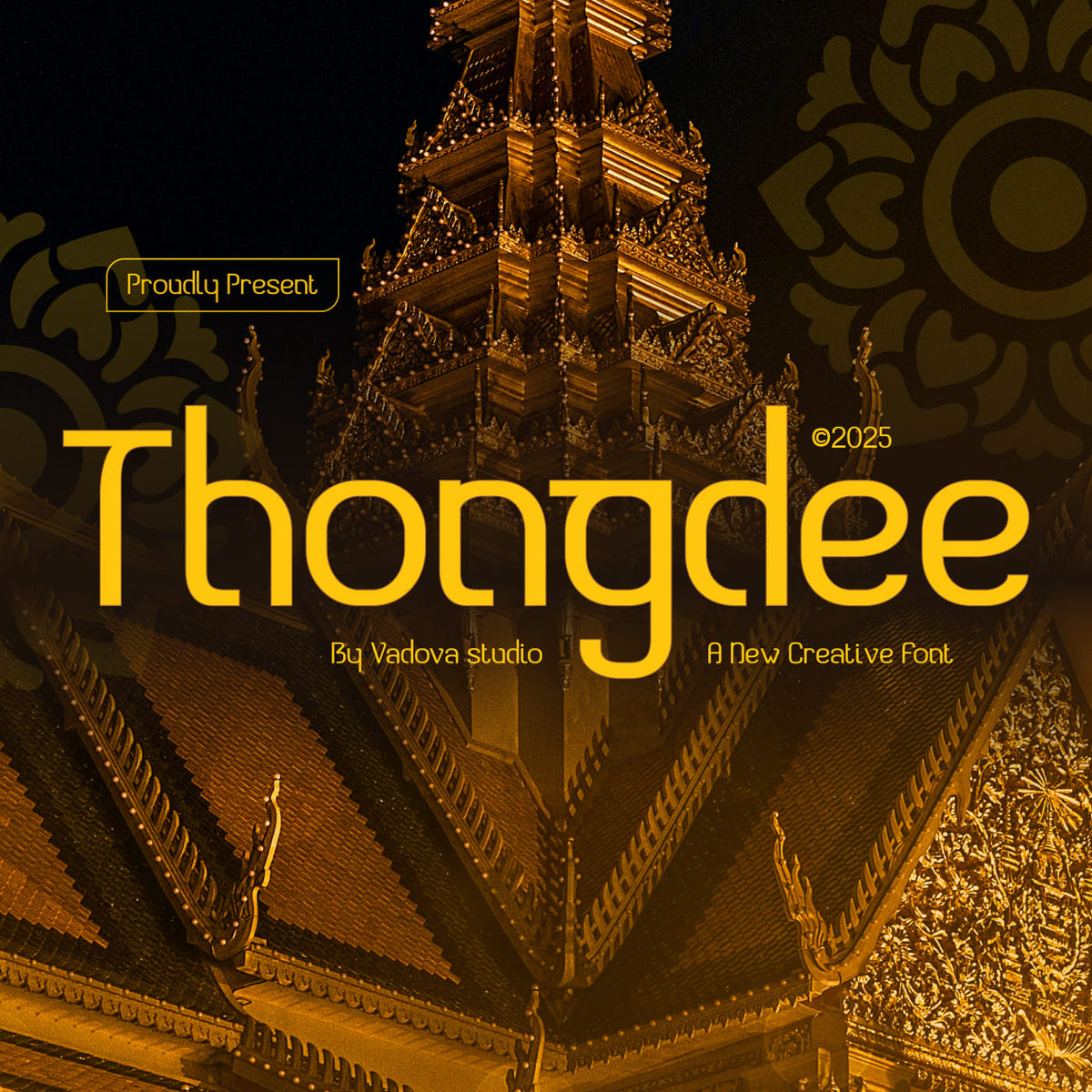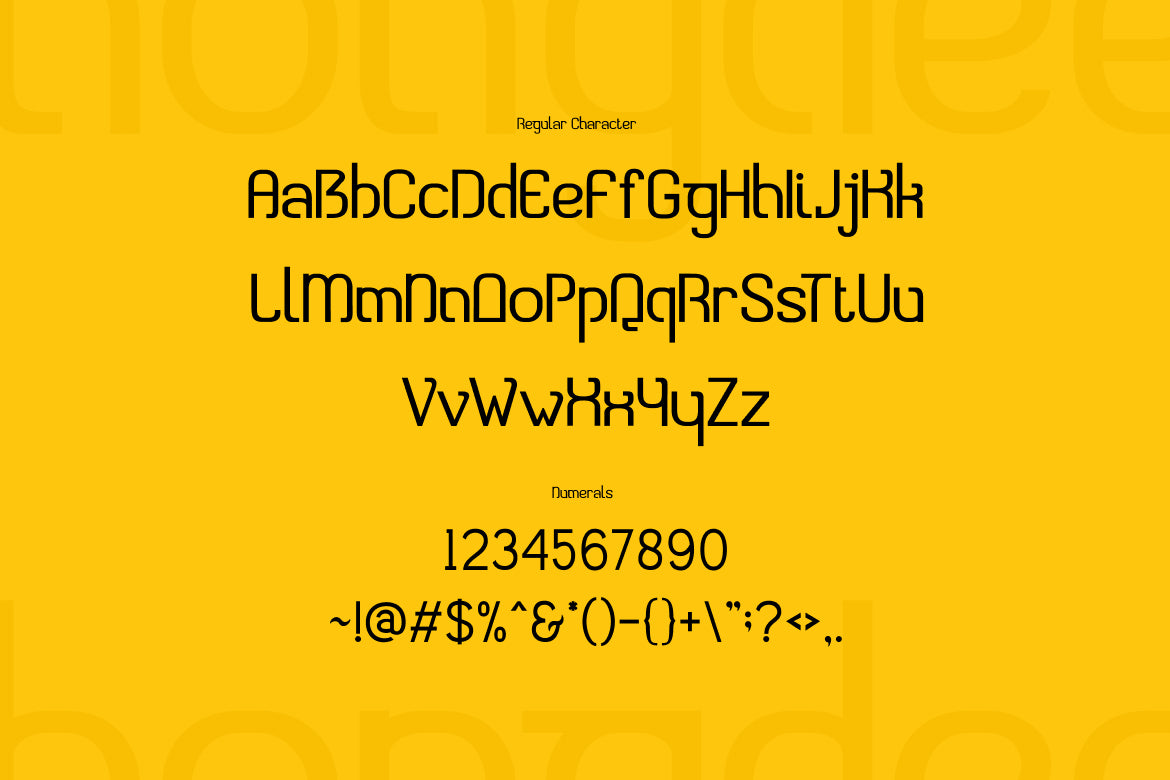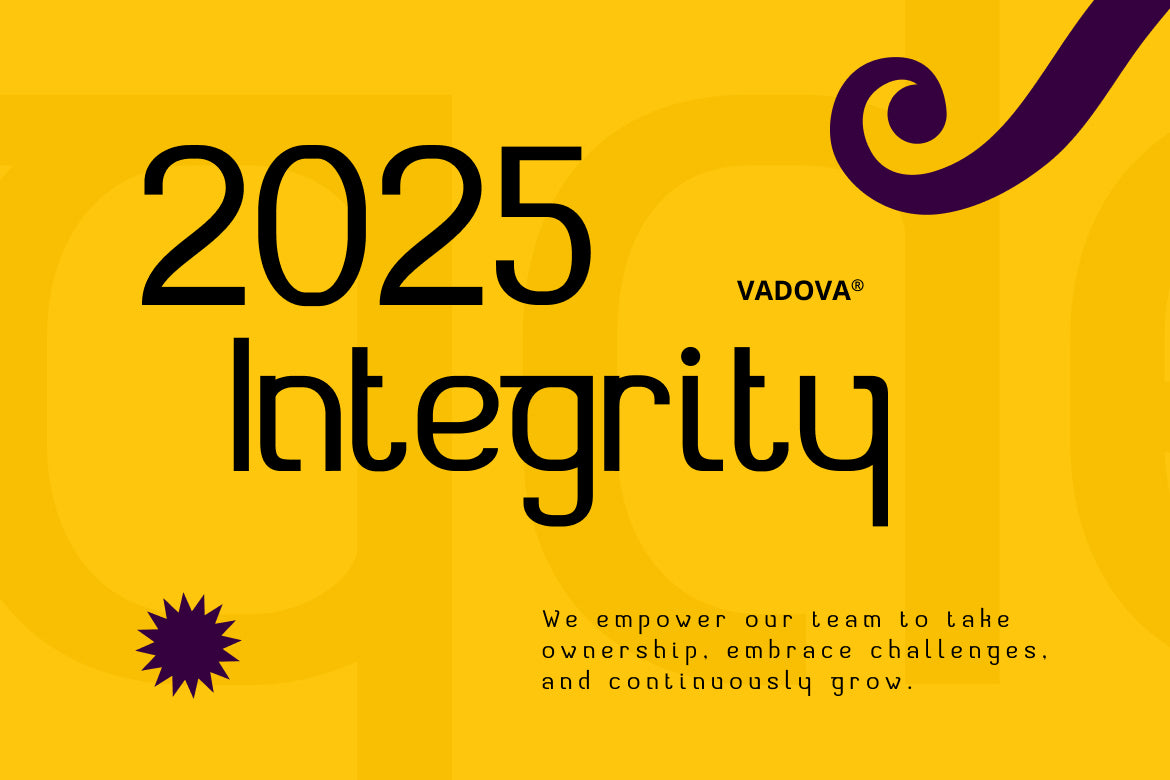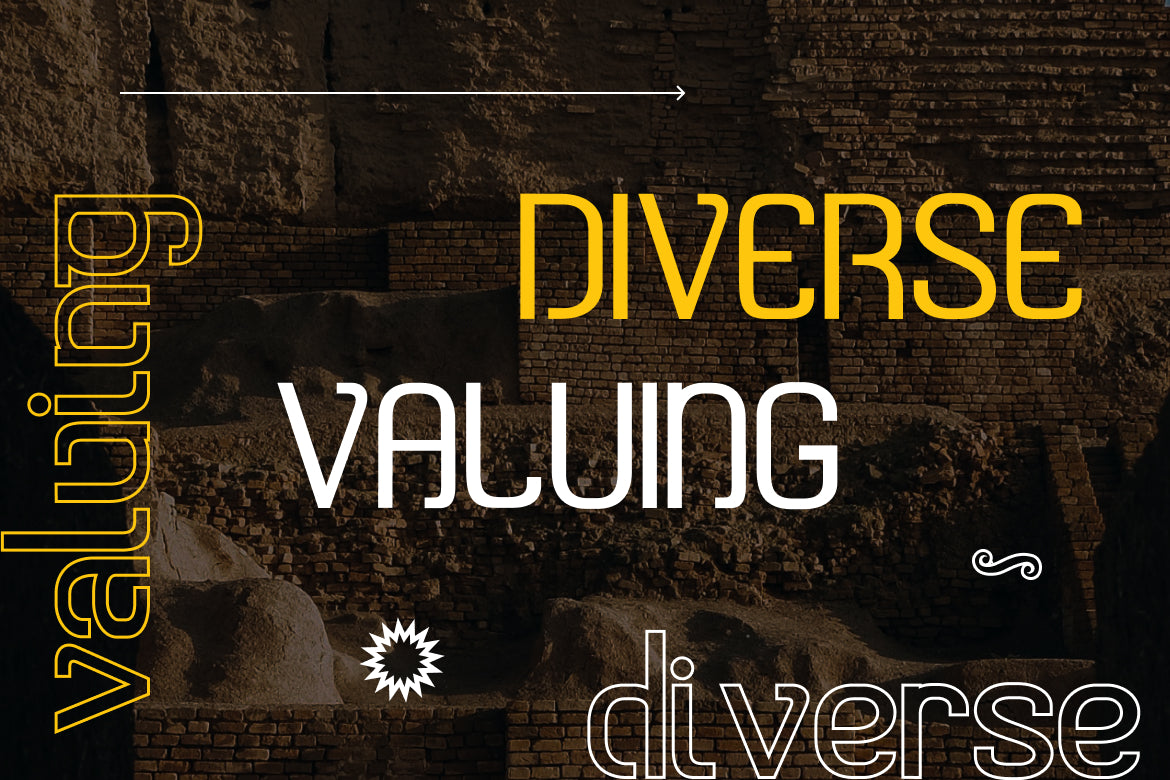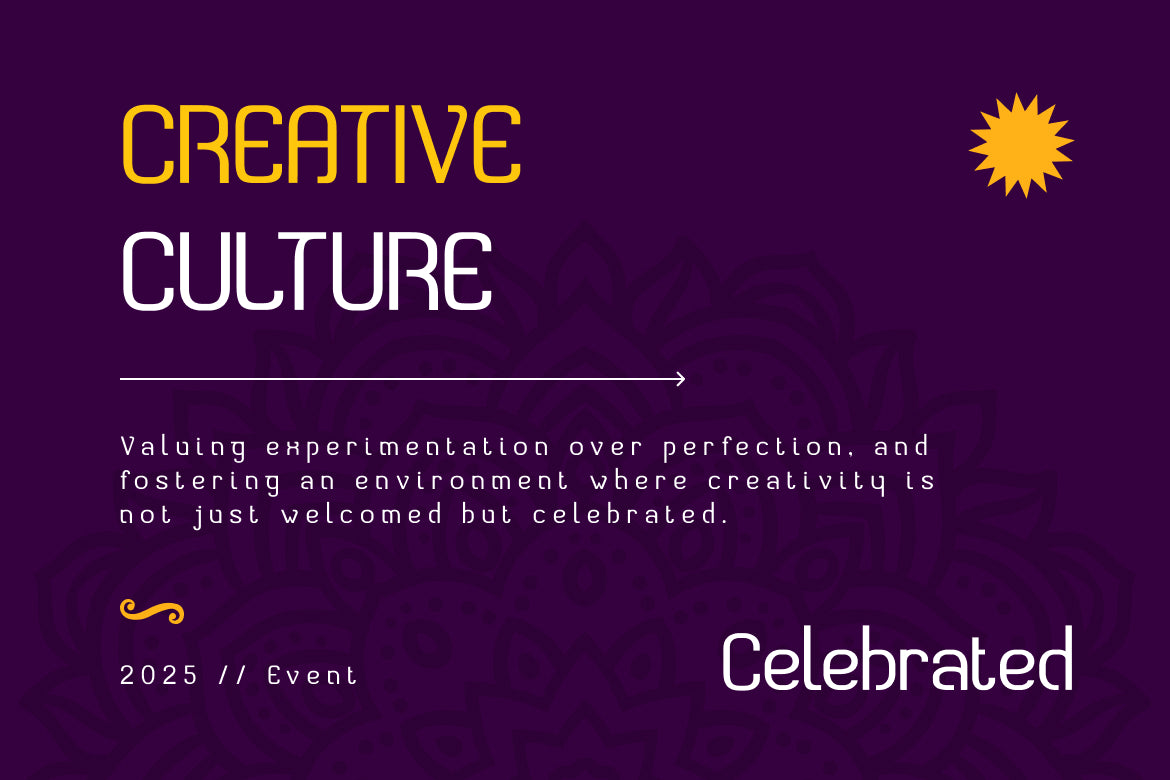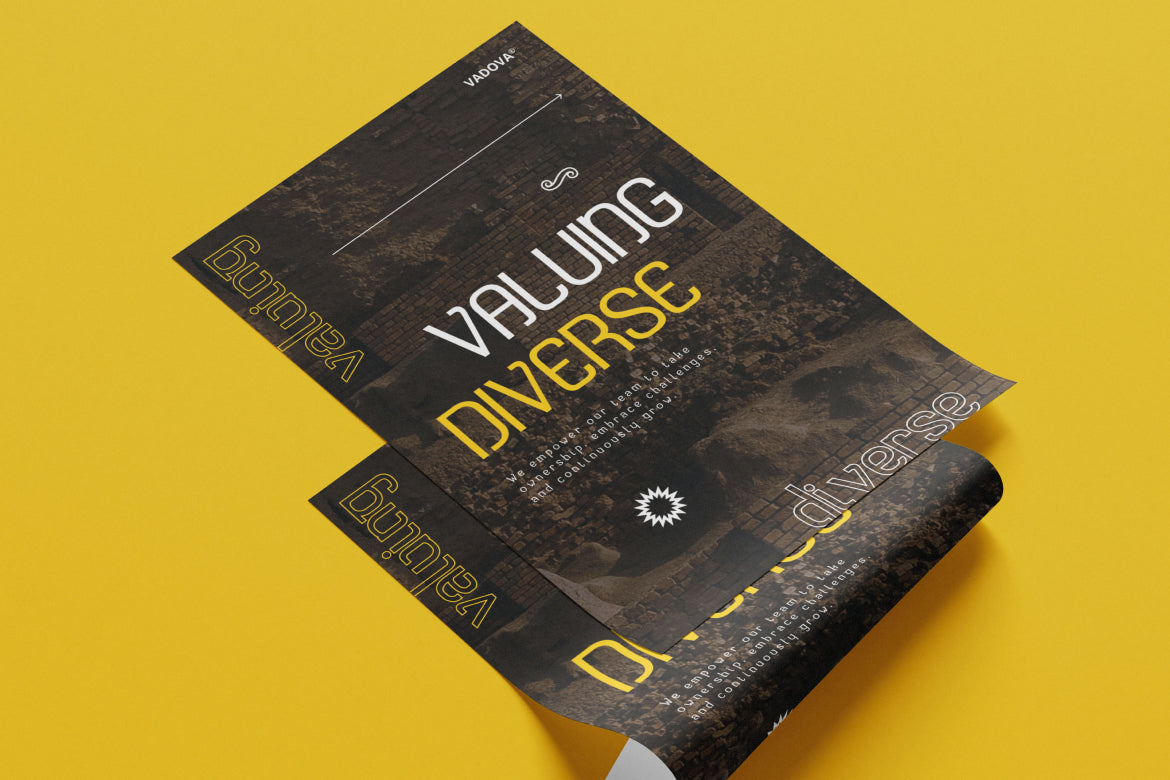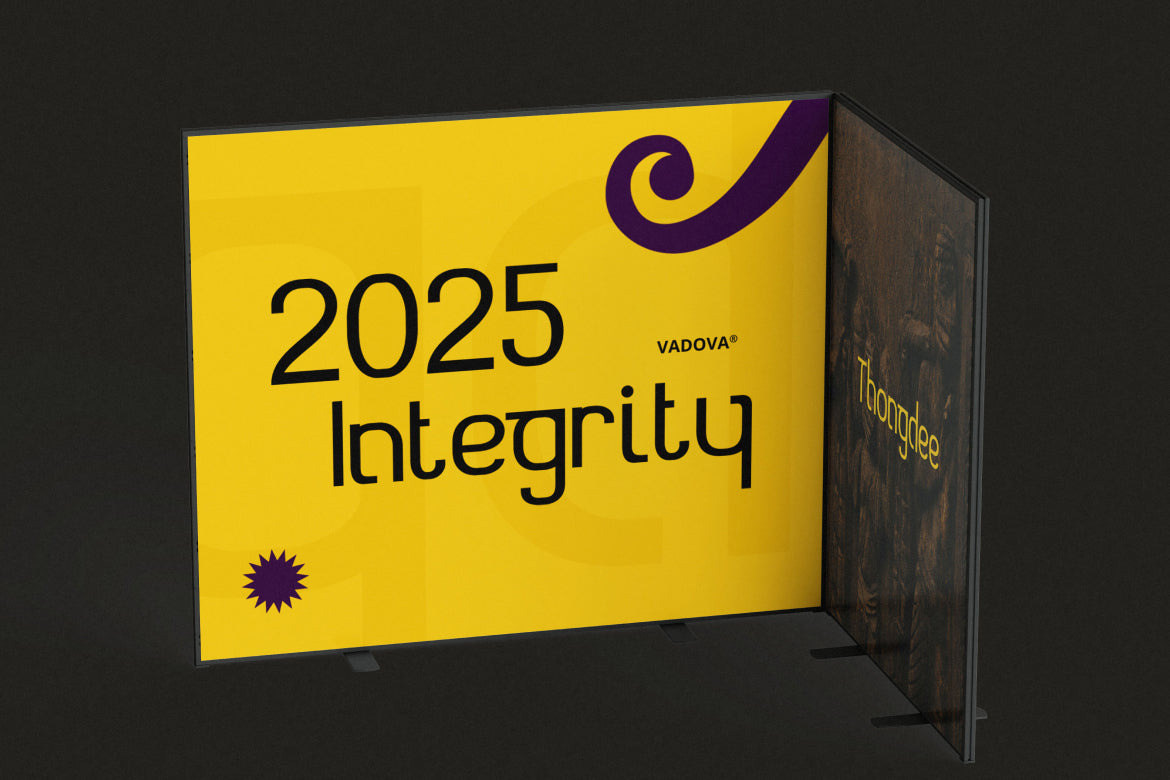
Thongdee Creative Font
Thongdee Creative Display Font features a modern cultural-inspired display style with rounded geometric construction and distinctive decorative letterforms. The font includes uppercase, lowercase, numerals, punctuation, and designed with clean condensed proportions and smooth curved terminals for impactful visual presentation. Its artistic structure blends contemporary typography with subtle traditional influences, making it suitable for branding, posters, editorial layouts, packaging, signage, and digital creative projects.
Relevance & Use Cases for branding projects that require a distinctive and artistic visual identity with modern cultural aesthetics. It works effectively for logo design, restaurant branding, travel campaigns, editorial headlines, luxury packaging, music posters, event promotions, social media graphics, merchandise, and contemporary advertising materials where expressive typography becomes the central visual element.
Thongdee Creative Font is a display typeface with rounded geometric construction, condensed proportions, and curved terminals, combining contemporary typography with traditional cultural influences. It includes uppercase and lowercase characters, numerals, and punctuation, available in TTF, OTF, and WOFF formats.